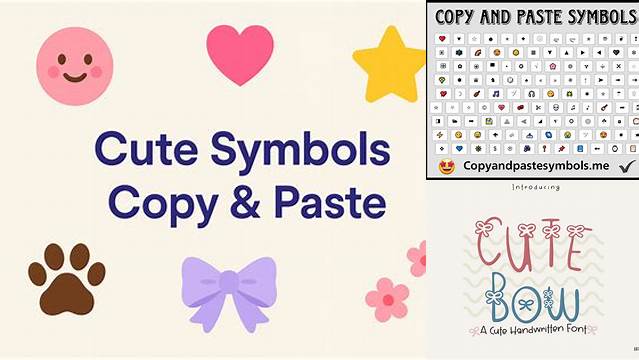
Copy & Paste Cute Fonts, Symbols, & Bows: Your Guide
Hey guys! Are you ready to jazz up your text with some seriously adorable flair? We're diving headfirst into the wonderful world of cute fonts, copy and paste symbols, and bows! Whether you're spicing up your social media posts, creating eye-catching messages, or just want to sprinkle a little bit of extra sweetness into your digital life, you're in the right place. Get ready to learn how to effortlessly copy and paste a bunch of charming characters that will make your content pop! We'll cover everything from finding the perfect fonts to adding those cute little bows that just scream 'adorable'. Let's get started and transform your ordinary text into something extraordinary!
1. Unveiling the Charm of Cute Fonts: Your Font Fiesta!
Let's kick things off by talking about cute fonts copy and paste! Choosing the right font can completely change the vibe of your message. Imagine a handwritten-style font for a birthday card, or a bubbly font for a fun social media post. The best part? You don't need to be a font expert to find amazing options. There are tons of websites out there offering a huge variety of fonts that you can simply copy and paste. These fonts often have a whimsical or playful design, perfect for adding a touch of personality. To start, look for websites or online font generators that offer fonts that you can easily copy and paste. Search terms like "cute fonts copy and paste" or "fancy text generator" are your best friends here! You will find several websites that let you type your text, and then display it in a range of charming font styles. All you need to do is select your desired font style, copy the text, and paste it wherever you like – be it your Instagram bio, a greeting message, or even a personal blog. And there are even more options, with varying levels of formality, from the casual fonts that resemble doodles to more elegant, stylized choices. So start your search, explore, and discover the world of cute fonts. Finding the right font will change the style of your writings and will also make your content more attractive and personalized.
1.1. Where to Find the Cutest Copy and Paste Fonts
Alright, so where do you go to find the best cute fonts copy and paste options? Luckily, there are several places that are ready and waiting for you. There are websites that are specifically designed for generating fancy text, offering an easy copy-and-paste experience. You can simply type your message and see it magically transformed into unique font styles. Other places to discover cute fonts include websites that offer a wide selection of font styles, which include a lot of free options. Some of them allow you to preview your text in different fonts before you copy and paste them. When you explore, you'll find that the options are virtually limitless. You can find fonts for every occasion, from a birthday message to a professional-looking website. Don't hesitate to try different sites and tools to see which ones give you the best results. Keep in mind the character limits if you plan to use these fonts on social media platforms or other platforms with text limitations. Start exploring and see what hidden gems you will find. And one more thing, don't be afraid to experiment with different fonts to create that perfect balance of cuteness and style. The goal is to have fun and express your unique personality.
1.2. Copy and Paste Made Easy: Your Quick Guide
So, how do you actually copy and paste cute fonts? It's super easy! The first step is to head over to your favorite font generator or website. Once you're there, you'll usually find a text box where you can type in your message. As you type, the tool will display your text in various font styles. Browse through the options until you find the font that melts your heart. Click or tap on the text in the desired font to select it. After you've selected the text, simply right-click (or tap and hold on a mobile device) and choose "Copy". Alternatively, you can use the keyboard shortcuts: Ctrl+C (Windows) or Cmd+C (Mac). Now, navigate to the platform or document where you want to paste your cute font text. Right-click (or tap and hold) in the text box and choose "Paste". Or, use the keyboard shortcuts: Ctrl+V (Windows) or Cmd+V (Mac). Voila! Your text is now in a super cute font. And there you have it: instant adorableness. Remember to test the font on different platforms to ensure it displays correctly. Also, note that some platforms may not support all fancy fonts, so you might see a fallback font. Have fun experimenting and spreading the cuteness everywhere!
2. Symbollically Sweet: Copy and Paste Symbols to the Rescue!
Okay, so you've got your fonts sorted. Now let's amp up the cuteness with copy and paste symbols! Symbols are tiny little characters like hearts, stars, and other special characters that can add instant charm to your text. They're perfect for making your messages more visually appealing and expressing yourself in unique ways. These are not just random characters; each symbol carries a specific meaning or emotion. For example, a heart symbolizes love and affection, and a star represents something special. Adding these symbols can make your messages pop out, making them much more memorable and interesting to read. The best part is that you don't need to be a coder to use them. You can easily find collections of symbols online, ready to be copied and pasted. This is great for adding that extra touch of personality to your content. Whether you're looking to express love, excitement, or just want to add a fun element to your content, symbols are your go-to solution. Let's go explore the world of copy and paste symbols and find out how they can boost your digital communication!
2.1. The Best Websites for Copy and Paste Symbols
Want to find some awesome copy and paste symbols? There are tons of websites out there that offer extensive collections. Websites like GetEmoji and CoolSymbol are great resources. These sites usually have a huge variety of symbols categorized by different themes, such as hearts, stars, arrows, music notes, and so much more. Another place to look for symbols is Unicode character tables. Websites like FileFormat offer comprehensive lists of Unicode characters, including a vast array of symbols. Many websites have user-friendly interfaces, making it easy to find and copy the symbols. You can simply browse through the categories, select your favorite symbols, and copy them to your clipboard. Most of these websites let you preview the symbols to ensure they look exactly the way you want them. Experiment with various combinations of symbols to make creative and eye-catching text. Remember that the key to using symbols is to use them strategically, not randomly, to ensure that the effect is clear and that it boosts your text. Don't be afraid to explore these websites and see how you can incorporate these symbols into your content to make it more attractive and personalized!
2.2. Level Up Your Messages: How to Use Symbols Effectively
Using copy and paste symbols effectively is all about balance and creativity. The goal is to make your text more engaging without overwhelming your audience. To start, try incorporating symbols strategically to highlight key points or to separate sections in your content. For example, use a star or an arrow to mark important information. Then, you can use hearts or emojis to express emotions or create a friendly tone. However, don't go overboard. Too many symbols can make your text look cluttered and difficult to read. Keep it simple and focused. Think about your audience and the message you want to convey. Choose symbols that align with your brand or personal style. Also, make sure the symbols are compatible with the platform you are using. Some platforms might not display all symbols correctly. Therefore, always test your content before posting to make sure everything looks the way you intend. Experiment with different symbol combinations to create visually appealing designs. Try to use symbols consistently. When used thoughtfully, symbols can elevate your content to the next level.
3. Bow-tiful Additions: Copy and Paste Bows for Extra Charm
Get ready for some serious cuteness overload! Let's learn how to copy and paste bows, because what's cuter than adding a bow to your message? Bows are perfect for adding a touch of sweetness and elegance to your text, and can be used in many different ways. You can use them to decorate your text, to create a sense of celebration, or simply to add a cute embellishment. Bows come in various styles, from simple ribbons to more elaborate designs. They're great for creating a festive or playful vibe in your text. Adding bows to your text is easy, so you can quickly enhance the visual appeal of your content. They're perfect for adding a touch of sweetness and elegance to your text. They are also useful for highlighting important text and creating a visually appealing design. By using these bows, you can make your content look more attractive, making it more engaging. Let's explore where to find and how to copy and paste bows. Let's make your text stand out and grab attention with just a few clicks!
3.1. Hunting for Bows: Where to Find Copy and Paste Bow Symbols
If you're looking to find some awesome copy and paste bows, you're in luck! There are plenty of places online that offer a great selection of bow symbols. First, try searching for